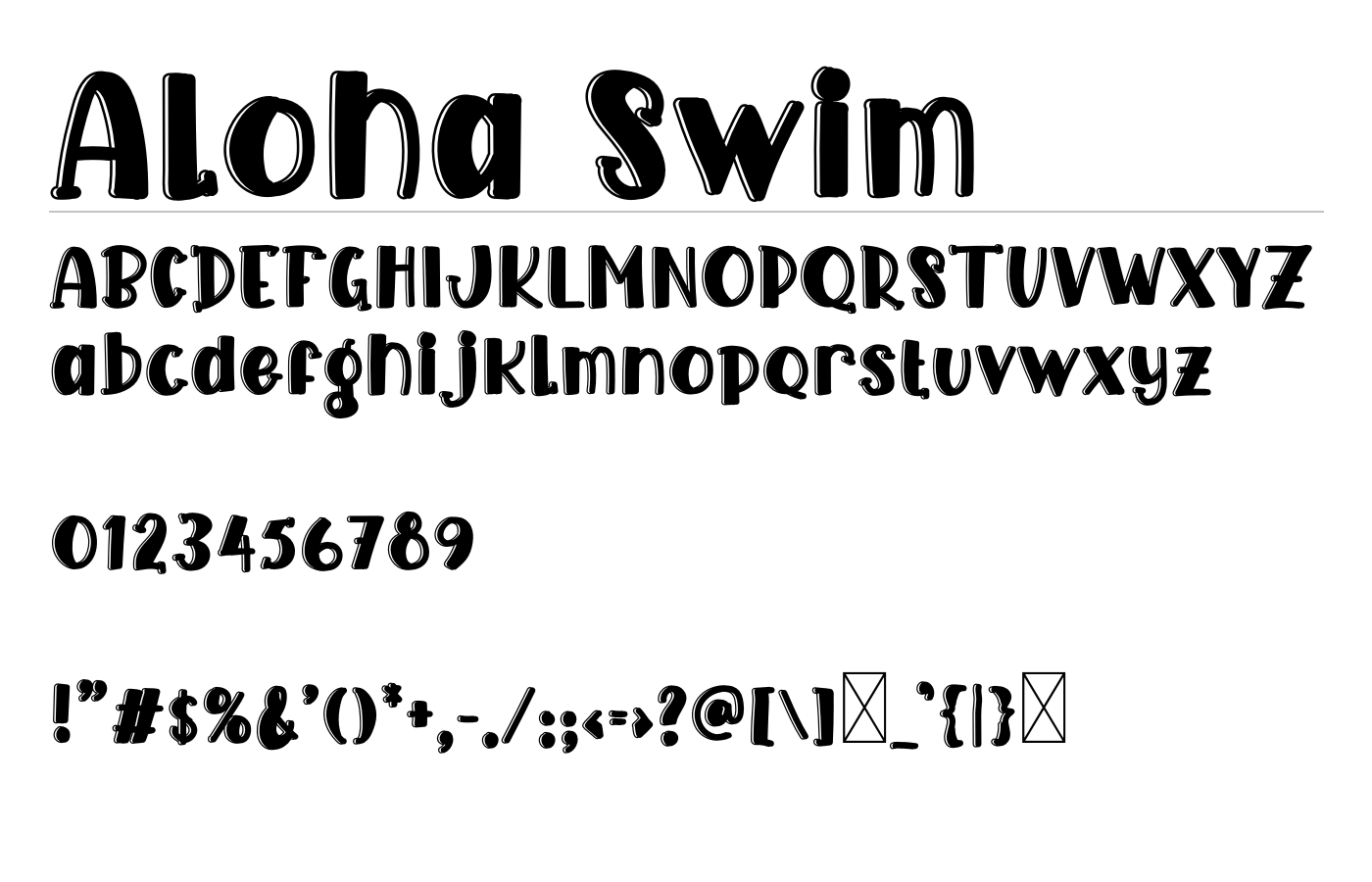
Aloha Swim is a playful and bold sans serif font with rounded, slightly irregular letterforms that give it a casual, hand-drawn feel. Its medium weight and quirky shapes make it perfect for fun, youthful designs such as logos, posters, and packaging where a friendly and approachable vibe is desired. This font’s unique personality adds charm and energy, making it a great choice for creative projects that want to stand out.
Aloha Swim Font
About Aloha Swim Font